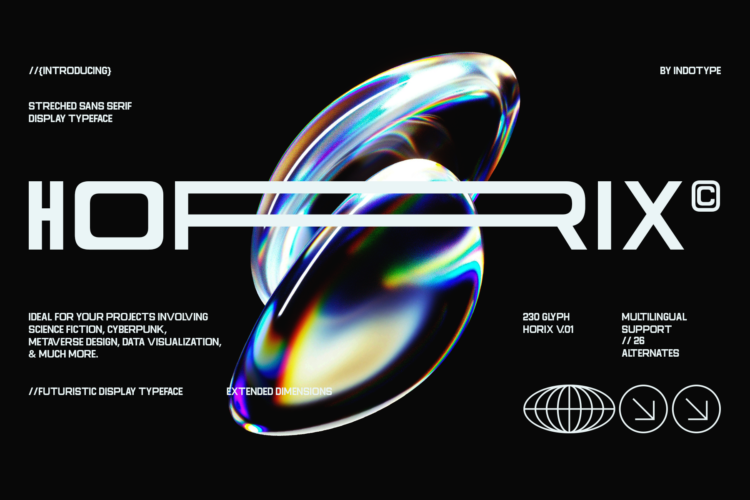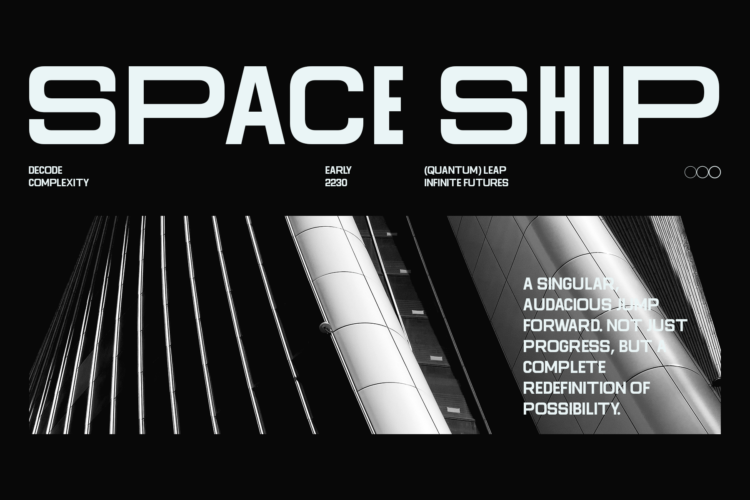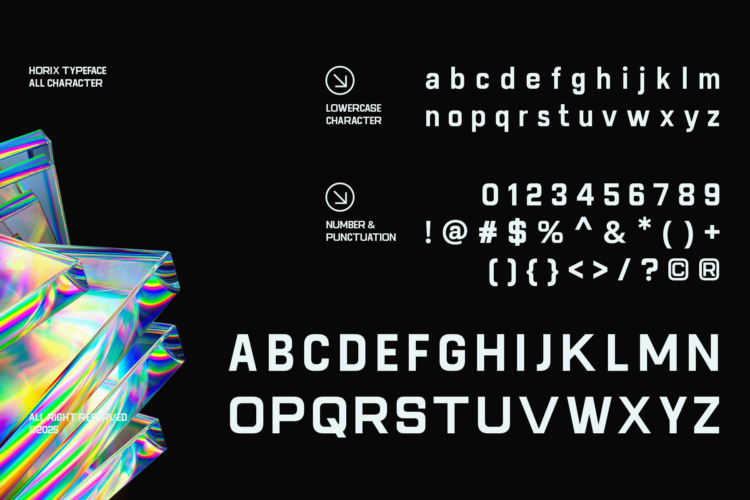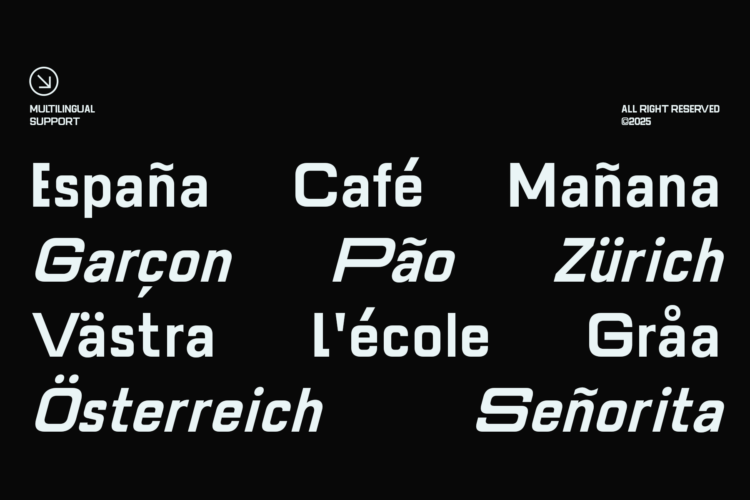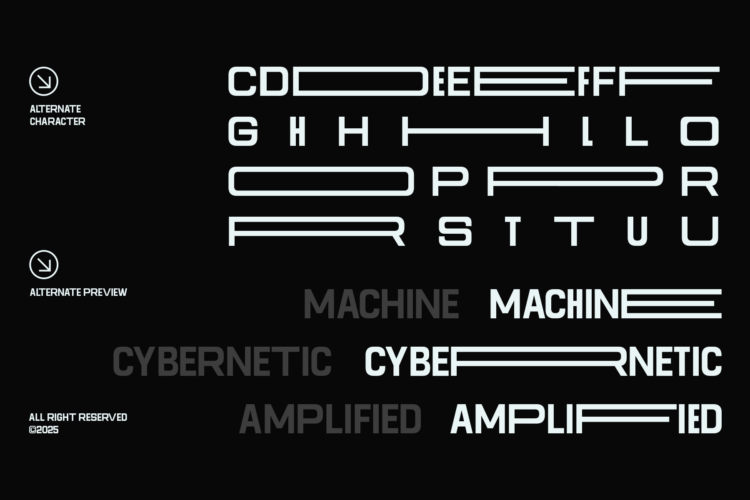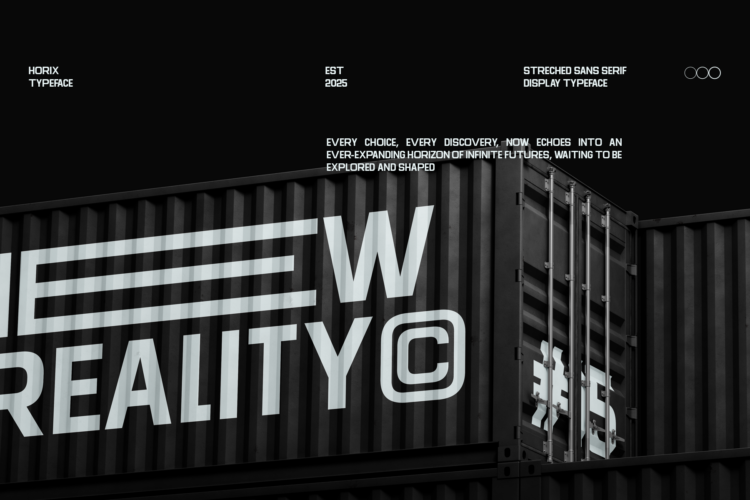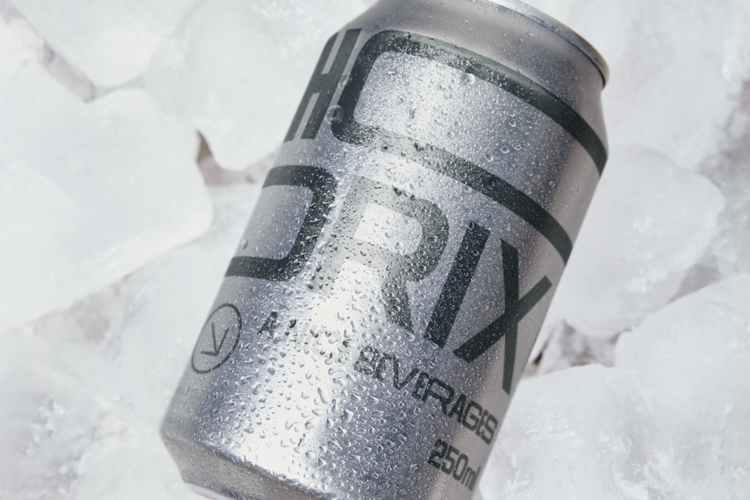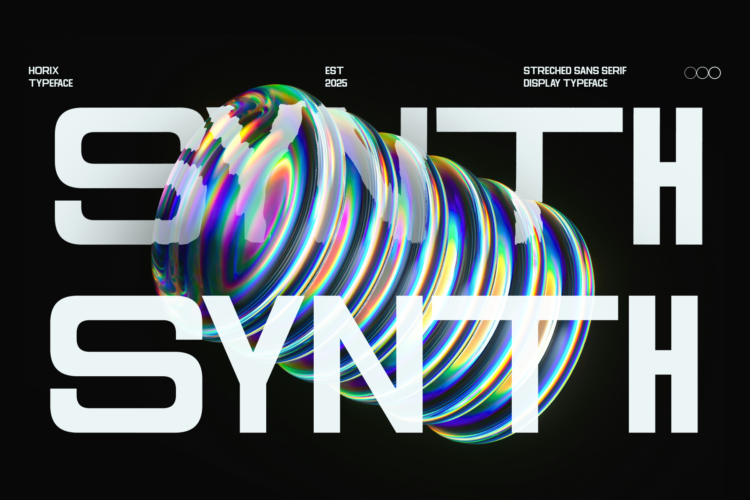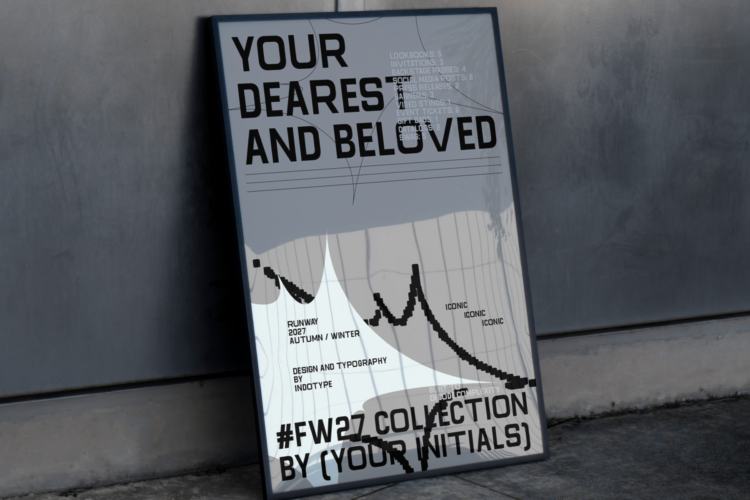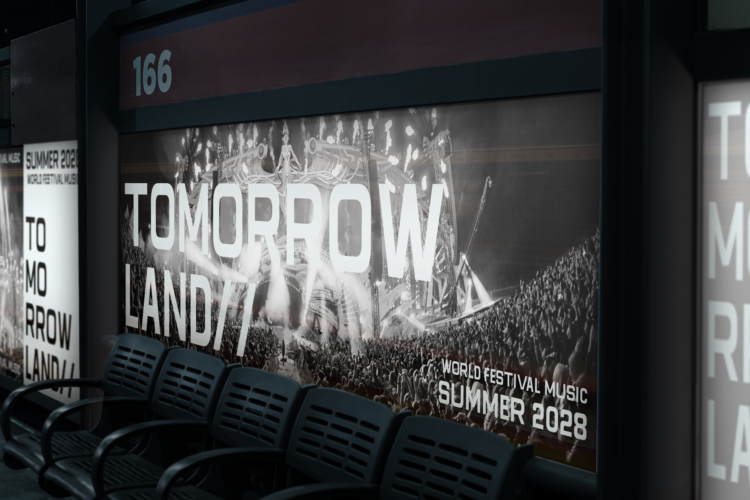
Horix is a stretched sans serif futuristic display font designed to push the boundaries of typography. With its elongated forms, sharp precision, and high-tech aesthetic, Horix is perfect for projects that explore the edge of innovation. This typeface brings a futuristic tone, making it ideal for science fiction themes, cyberpunk visuals, metaverse design, gaming interfaces, technology branding, data visualization, and experimental layouts. Its extended proportions and unique alternates give designers the flexibility to create striking, forward-looking compositions. Featuring 230 glyphs, 26 stylistic alternates, and multilingual support, Horix is built to perform across diverse platforms and languages. Designed by Indotype in 2025, Horix is more than a font—it’s a portal into the future of design.
- Regular and Italic Style
- Multilingual Support accents and diacritics
- Including Alternate Glyphs